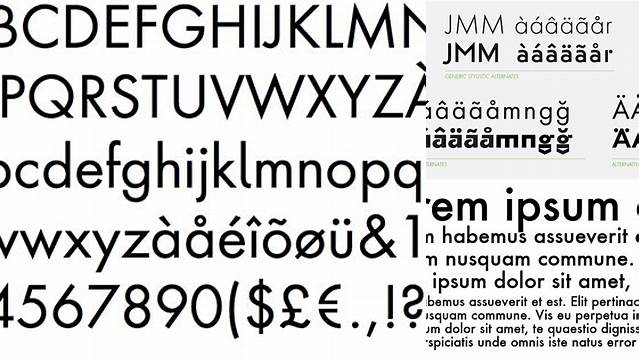
Hey guys! Ever found yourself on the hunt for a sleek, modern font that just screams "contemporary design"? Well, look no further! Today, we're diving deep into the world of Futura ND Alternate, a fantastic variation of the iconic Futura font family. I'll walk you through how to snag a free download, discuss the font's unique features, and explore some creative ways to use it. Whether you're a seasoned graphic designer or just starting out, this guide has something for everyone. Let's get started, shall we?
What is Futura ND Alternate?
Alright, let's break down what makes Futura ND Alternate so special. At its core, it's a geometric sans-serif typeface, which basically means it's clean, modern, and lacks those little "feet" or serifs you see on fonts like Times New Roman. The original Futura was designed by Paul Renner in 1927, and it quickly became a sensation, known for its simple geometric shapes. Futura ND Alternate takes this classic and adds a twist. The "ND" stands for "New Design," indicating it's a revised version. The “Alternate” part signifies that it includes a set of alternative glyphs. These alternate glyphs are what give this font its unique flavor. Think of it like having a regular font and then getting a set of cool, customized characters to spice things up. This version typically features altered characters, providing a slightly different aesthetic compared to the standard Futura font, adding more visual interest and flexibility to your designs. It is a versatile font, perfect for everything from headlines to body text. The crisp lines and balanced proportions of Futura ND Alternate make it a winner for both print and digital media. Its readability and the ability to convey a sense of sophistication and modernity makes it a favorite among designers.
So, what does this mean in practical terms? The geometric design of Futura ND Alternate makes it incredibly readable, especially in headlines and shorter text blocks. The alternate glyphs provide a unique touch, allowing you to customize your text and make it stand out. The design also lends itself well to a variety of projects, from branding to web design. Furthermore, the clean lines and shapes give off a sense of precision and efficiency, making it great for projects where you want to convey a sense of professionalism and modernity. This also makes it a timeless font choice. Now, let's look at how to get your hands on this awesome font!
Designing with Futura ND Alternate: Tips and Tricks
Alright, you've got the font, now what? Let's dive into how to use Futura ND Alternate effectively in your designs. Because, as you guys know, having a cool font is only half the battle; knowing how to use it well is where the magic happens.
First, let's consider the context. Futura ND Alternate is fantastic for headlines, titles, and short text blocks. Its clean, geometric look makes it stand out and grabs the reader's attention. However, when it comes to body text, use it with caution. You should use a slightly heavier weight, to ensure good readability. It's great for modern, minimalist designs because it conveys sophistication and clarity. It works well in various mediums, from websites to print materials. Next, you'll want to think about font pairings. Pairing Futura ND Alternate with a serif font can create a beautiful contrast. Try using a serif font for body text and Futura ND Alternate for headlines. This combination can make your design visually appealing. Experiment with weights and styles. Futura ND Alternate comes in various weights – light, regular, bold, and often more. Play around with them. Use different weights for different elements in your design to create visual hierarchy. The bold weight is perfect for making headings pop, while the light weight can be used to create a sense of subtlety. Use letter-spacing and kerning. Letter-spacing, also known as tracking, refers to the amount of space between letters in a text block. Kerning refers to the space between specific pairs of letters. Experiment with these settings to make your text more readable and visually appealing. Adjusting letter-spacing can be super effective in headlines, where you want to create a balanced look. Consider the color palette. The clean lines of Futura ND Alternate work well with a wide range of colors. Use it with bright colors to give a modern and energetic look, or with more subdued colors for a sophisticated feel. Ultimately, the key to using Futura ND Alternate is to embrace its simplicity and geometric precision. The font is versatile. It is great for branding materials, posters, websites, and more. The aesthetic of the font is clean and modern.
Common Uses and Applications
So, where can you actually use Futura ND Alternate? This font is incredibly versatile, so the possibilities are pretty vast. Here are some of the most common and effective applications.
- Branding: This font is a superstar for logo design and brand identities. Its modern, clean look communicates professionalism and sophistication. Many major brands use Futura or similar fonts to build trust. If you want a brand to feel contemporary and reliable, Futura ND Alternate is a great option.
- Web Design: Futura ND Alternate is great for headlines, navigation menus, and other design elements. Because of its readability and modern style, it's perfect for creating a clean and user-friendly web experience. Ensure readability for body text by using a slightly heavier weight and a good font size.
- Print Design: From posters and flyers to brochures and magazines, Futura ND Alternate works great in print. It is crisp, clear, and easy to read. Its legibility makes it perfect for conveying information effectively. The bold weights will ensure that your text stands out. The sleek appearance will make any material look professional.
Wrapping Up: Making the Most of Futura ND Alternate